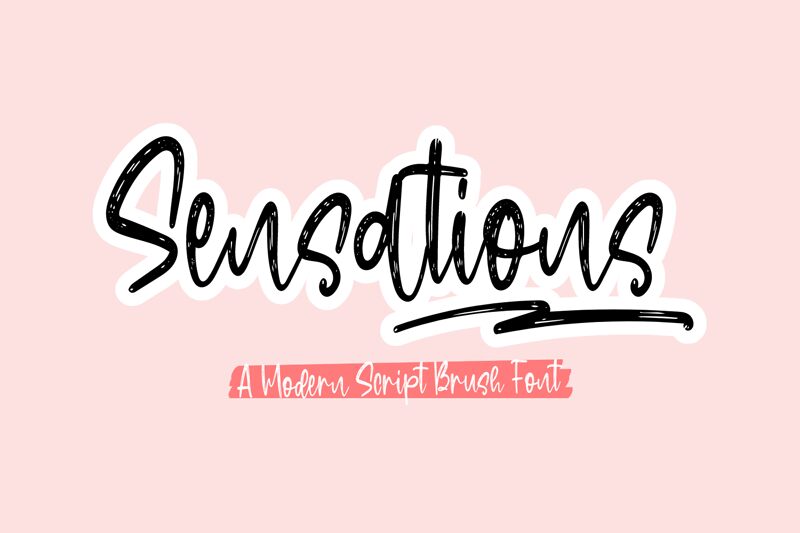
Sensations
Sensations is a light and airy brush font designed by Alghul. Its hand-drawn style and playful curves make it perfect for a variety of creative projects, from greeting cards to social media posts. Use it to add a personal touch to your branding, or to give a fun and whimsical feel to your website or blog. Sensations is a great choice for anyone looking for a font that's both unique and approachable.